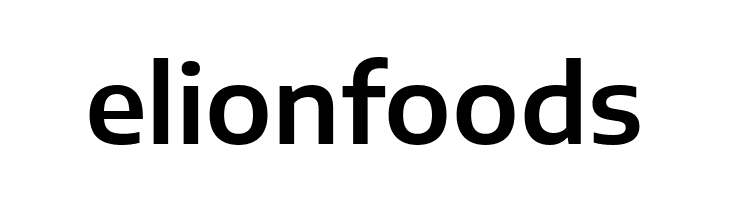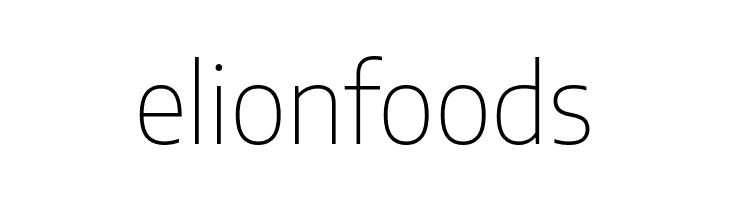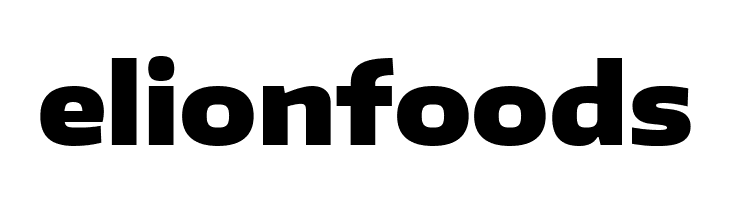
A clean, modern sans-serif font with a semi-expanded, extra-light design.
A modern, light sans-serif font with semi-expanded width and excellent readability.
A modern, semi-expanded sans-serif font with excellent readability and balanced design.
A modern, semi-expanded sans-serif font with a clean and professional look.
A modern sans-serif font with semi-expanded letterforms and consistent stroke width.
A modern, thin sans-serif font with semi-expanded width and elegant strokes.
A modern, thin sans-serif font with geometric and minimalistic design.
A clean and minimalist sans-serif font with thin strokes and uniform spacing.
A modern, wide sans-serif font with excellent readability and a clean design.
A bold, wide sans-serif font with a strong geometric structure.